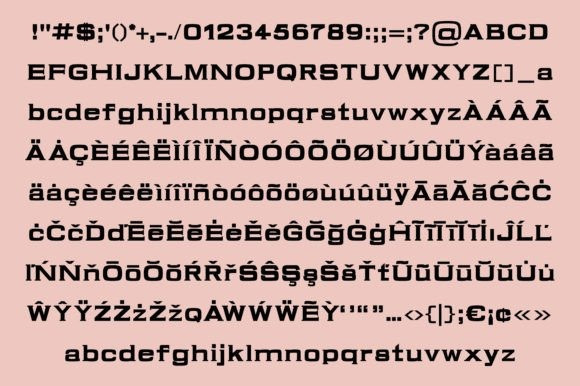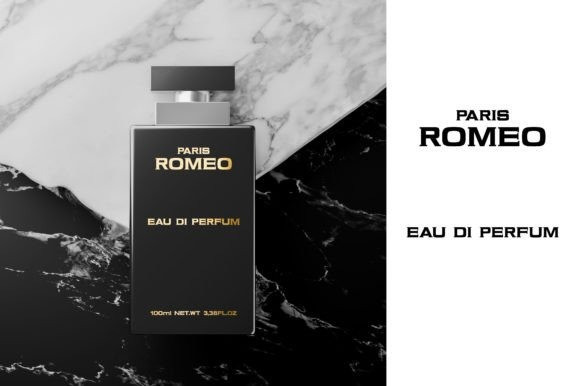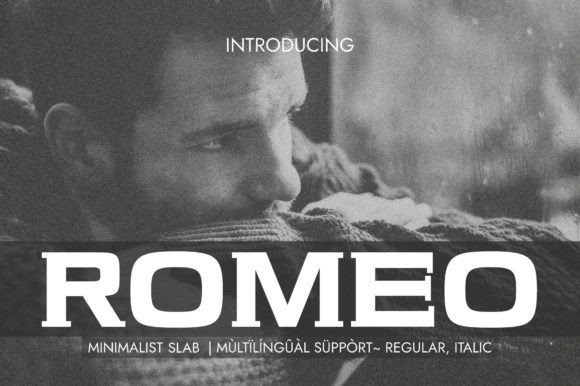
Romeo Font
Romeo Font is a bold, yet minimalist slab serif typeface. Incredibly versatile, this font is suitable for a wide range of creative projects.